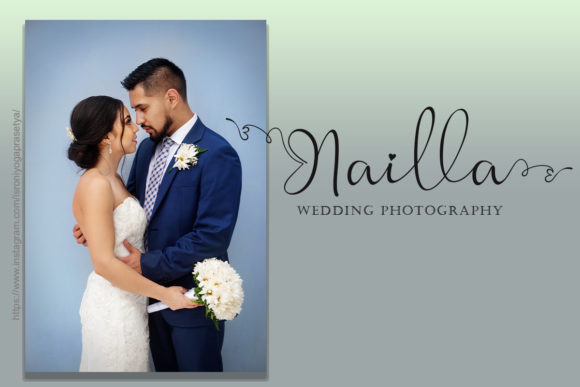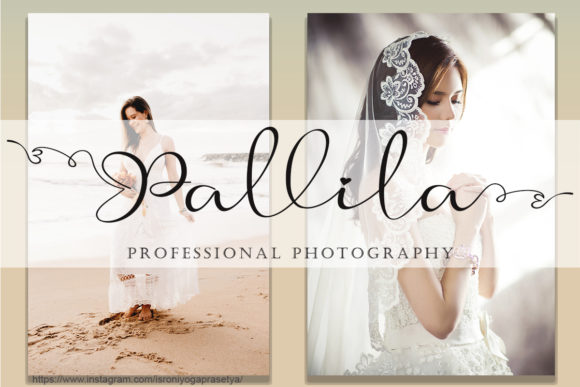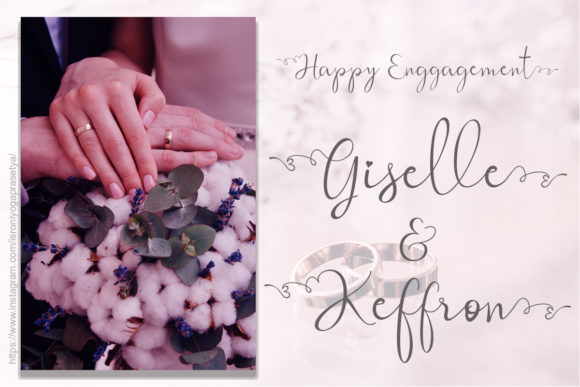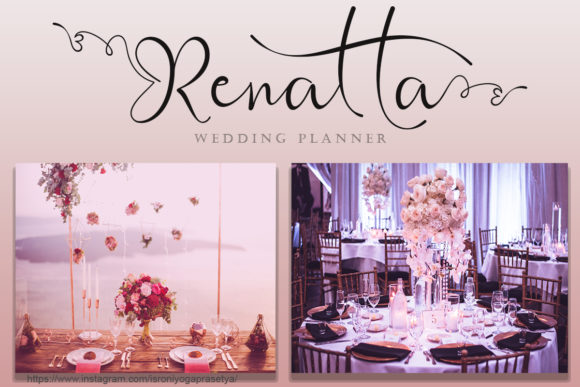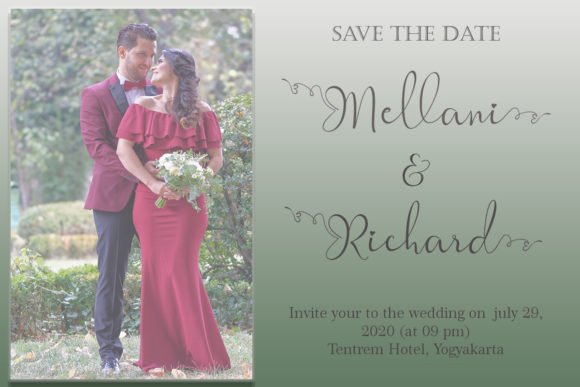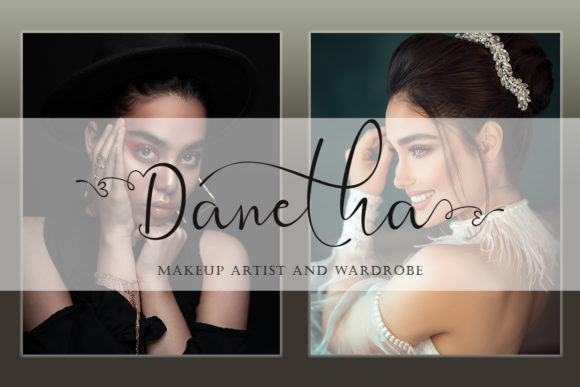
Introduction to Mikella Font
As a designer, you know the thrill of creating a unique visual identity for a project. It’s the moment when all the elements come together, and you see your vision take shape. For me, it’s the feeling of holding a beautifully crafted wedding invitation in my hands, with the elegant script of the Mikella Font dancing across the page.
With its high-quality design and versatility, the Mikella Font has become a go-to resource for designers looking to add a touch of sophistication to their creative projects. Whether it’s a free download for a personal project or a design resource for a commercial client, this font is sure to impress. In this article, we’ll take a closer look at the features and benefits of the Mikella Font, and explore why it’s a valuable addition to any designer’s toolkit.
From logos to business cards, and from quotes to greeting cards, the Mikella Font is the perfect choice for any design that requires a handwritten touch. With its transparent background and stunning alternates, this font is a game-changer for designers looking to create high-quality designs with ease.
Mikella Font
- Designed with a unique, modern aesthetic, making it perfect for a variety of creative projects, from logos to graphics.
Honest Review: Mikella Font
I recently stumbled upon the Mikella Font and was excited to give it a try in my latest design project. First impressions were great – the font is incredibly versatile and can be used in a variety of creative projects, from blog headers to social media graphics.
- High quality design that looks professional even in small sizes ✨
- Transparent background allows for seamless integration with any design
- Some users may find the font a bit too delicate for certain design styles ⚠️
- Lack of bold or condensed font weights may limit its use in certain applications
Overall, I’m really impressed with the Mikella Font and would highly recommend it to designers looking for a high-quality, free download option. Its versatility and professional design make it a great addition to any design library.
Mikella Font
Getting the Most Out of Mikella Font
For a high-quality design, use the Mikella Font in conjunction with a transparent background. This will give your design a clean and creative look. Additionally, use the font in a variety of creative projects, such as social media graphics, presentations, and brochures.
The Mikella Font is perfect for use in free download design resources, such as templates and graphics. It’s also great for use in creative projects that require a unique and eye-catching font. With its high-quality design, the Mikella Font is a valuable resource for any designer.